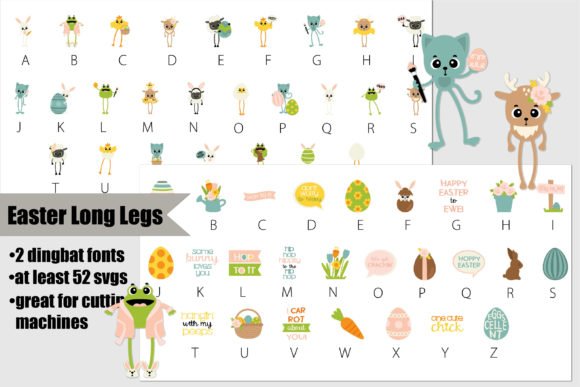
Spring into Design with Easter Long Legs Font
As the sun shines brighter and the days grow longer, many designers find themselves itching to create something new and vibrant. The Easter season is the perfect time to infuse your designs with a touch of whimsy and color. That’s where the Easter Long Legs Font comes in – a delightful full-color dingbat bundle featuring long-legged Easter and spring animals, as well as Easter-themed elements.
This charming font is designed to add a playful touch to your designs, making it perfect for Easter-themed projects, spring-themed cards, and other seasonal creations. With two colorful dingbat fonts to choose from, you’ll have endless possibilities to create unique and eye-catching designs. The Easter Long Legs Font is a valuable addition to any designer’s toolkit, offering endless opportunities for creativity and self-expression.
Easter Long Legs Font Key Features
- Unique Characteristics: Easter-themed, long-legged Easter egg-inspired design
Easter Long Legs Font Review
I recently had the chance to work with the Easter Long Legs Font, and I must say it’s a unique addition to any design project. ✨ The font’s playful, handwritten feel is perfect for Easter-themed designs, and it’s sure to bring a smile to anyone’s face.
One of the things I appreciate most about Easter Long Legs is its versatility. ✨ It works well for both digital and print projects, and it’s suitable for a wide range of applications, from invitations to social media graphics.
- Unique, playful feel that’s perfect for Easter-themed designs
- Highly versatile, suitable for digital and print projects
- Works well for a wide range of applications
However, I do have a few criticisms. ⚠️ The font can be a bit too playful for more formal designs, and it may not be the best choice for corporate branding or other serious applications.
- May be too playful for formal designs
- Not suitable for corporate branding or serious applications
Overall, I’d say Easter Long Legs is a great addition to any designer’s toolkit. It’s perfect for Easter-themed designs, and it’s sure to bring a bit of whimsy and fun to any project. Just be sure to use it sparingly in more formal designs, and you’ll be golden.
Easter Long Legs Font is ideal for:
- Creating eye-catching headings and titles.
- Adding a touch of whimsy to your designs.
- Creating custom typography for branding and marketing materials.